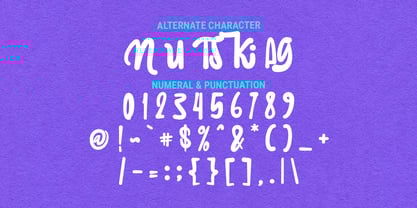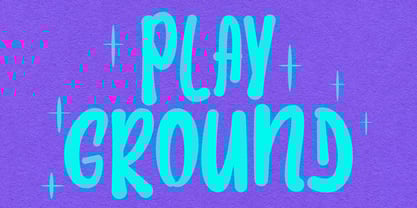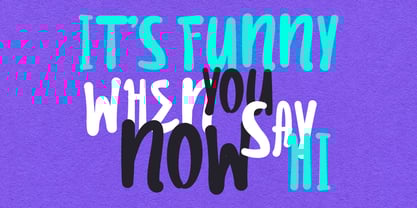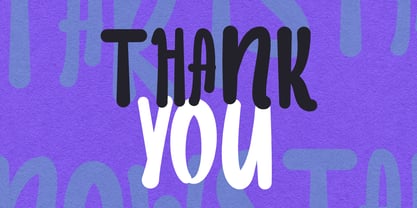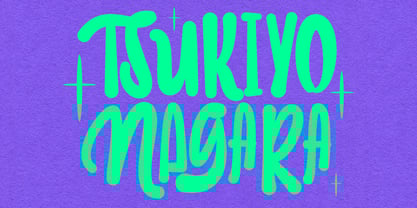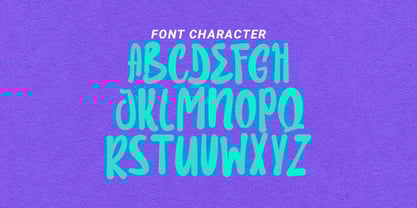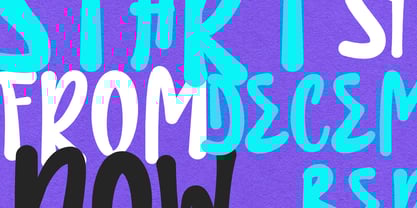
MC Tsukiyo Nagara
by Maulana Creative
The MC Tsukiyo Nagara Font Family was designed by Gilang Maulana and published by Maulana Creative. MC Tsukiyo Nagara contains 1 styles. More about this family
Tsukiyo Nagara handmade brush display font, fun character with alternates and ligatures. To give you an extra creative work. Tsukiyo Nagara handmade brush display font support multilingual language.